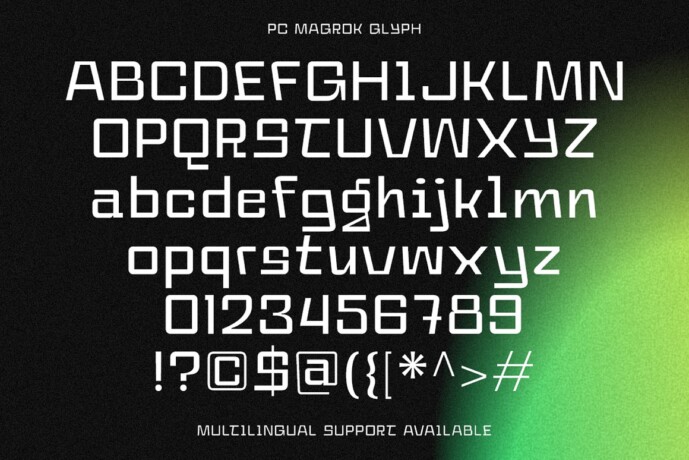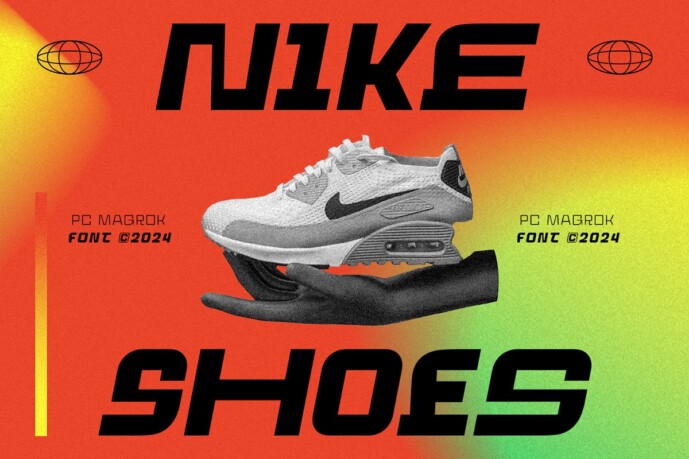
PC Magrok Font Family is a freestyle contemporary display font. 18 fonts available (Regular & Slant). Variable + Static font files are also available so you can play with them however you like. Suitable for logo, branding and poster design.